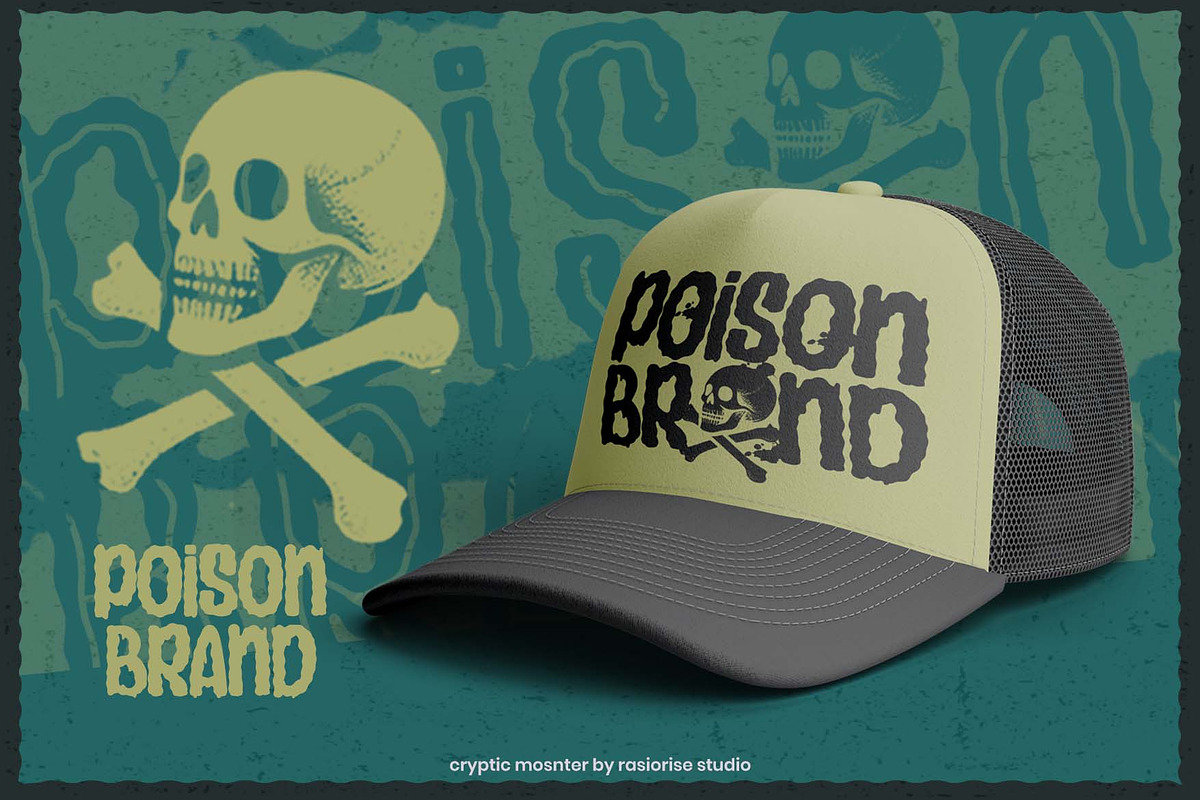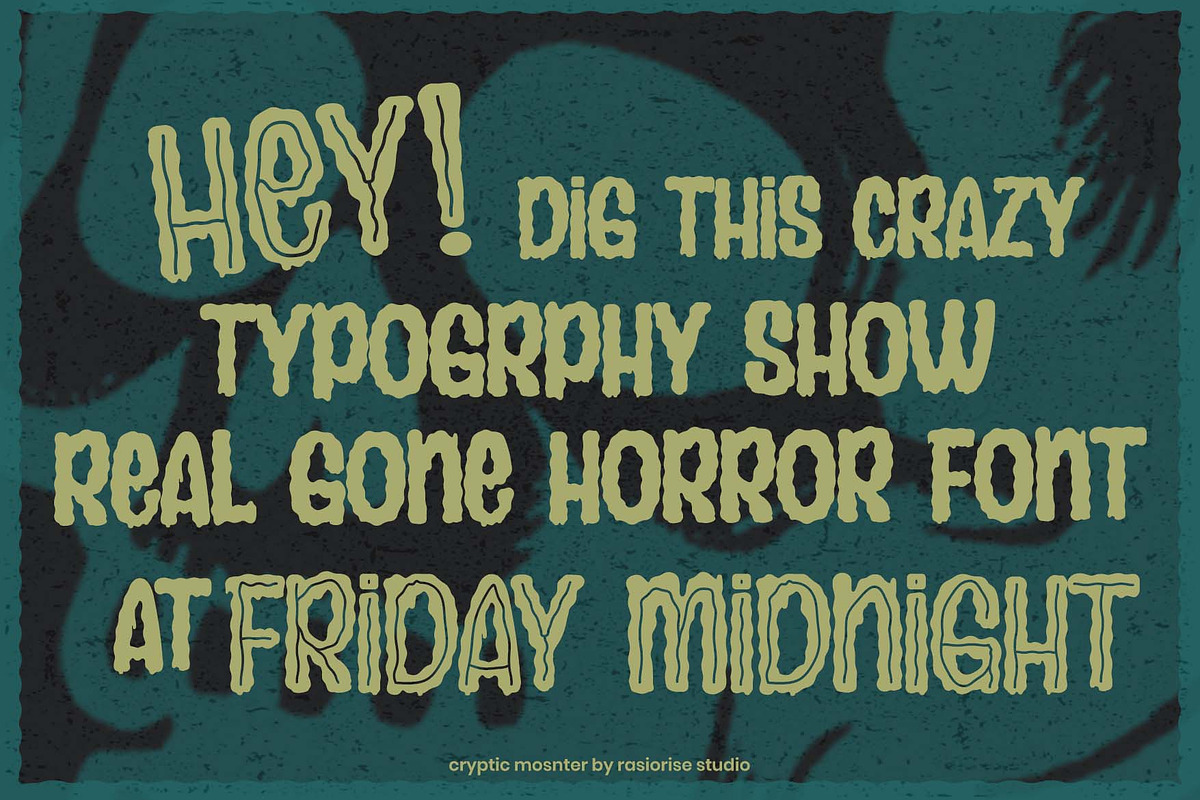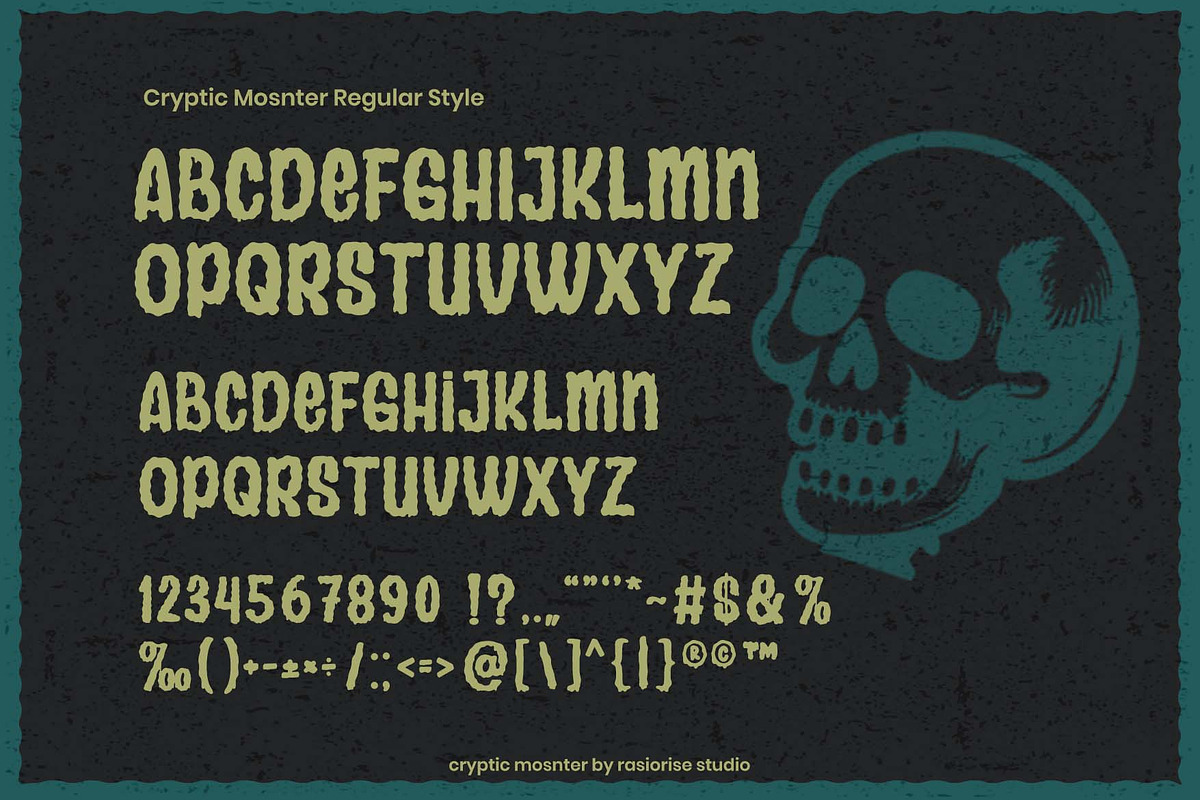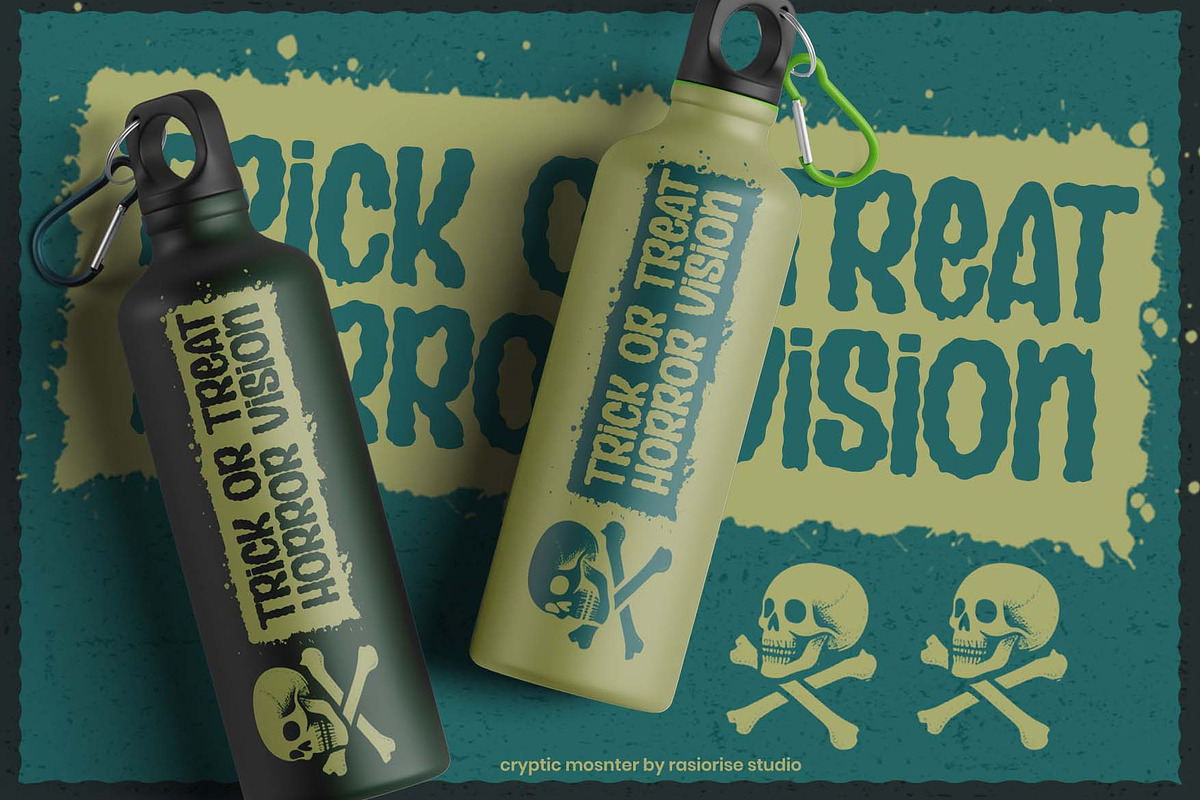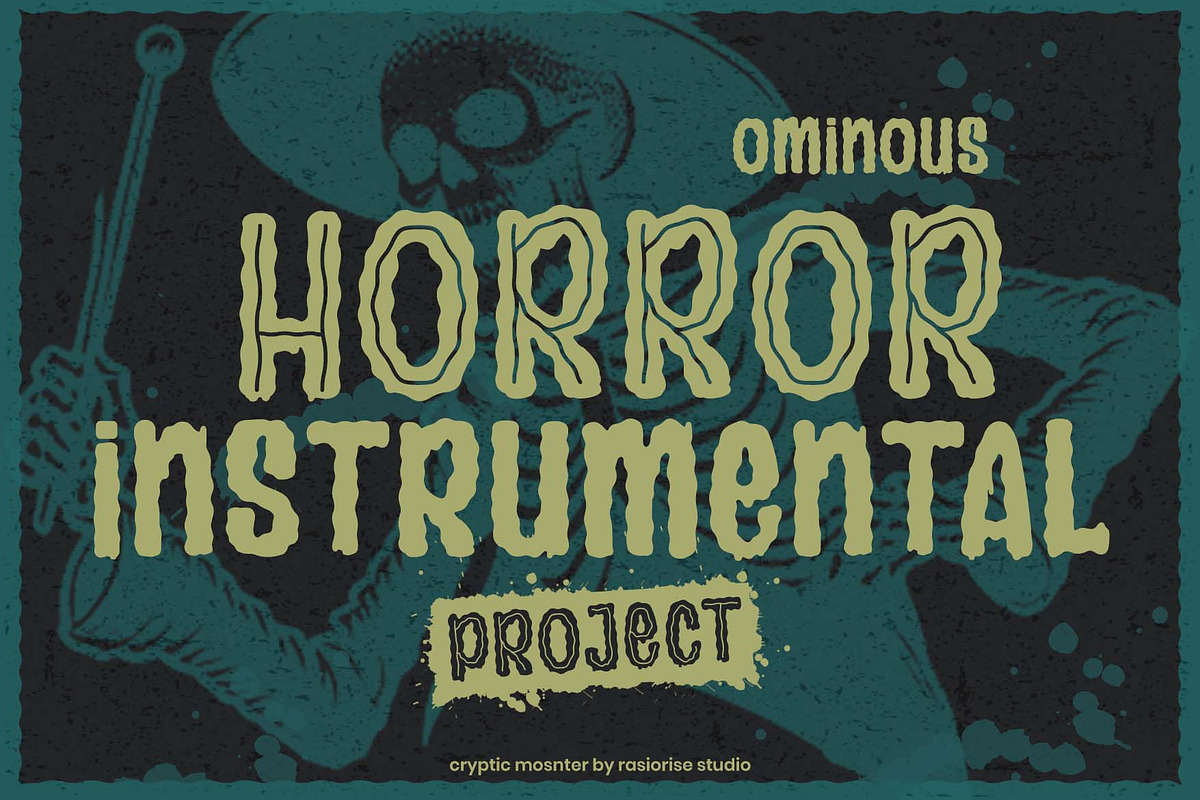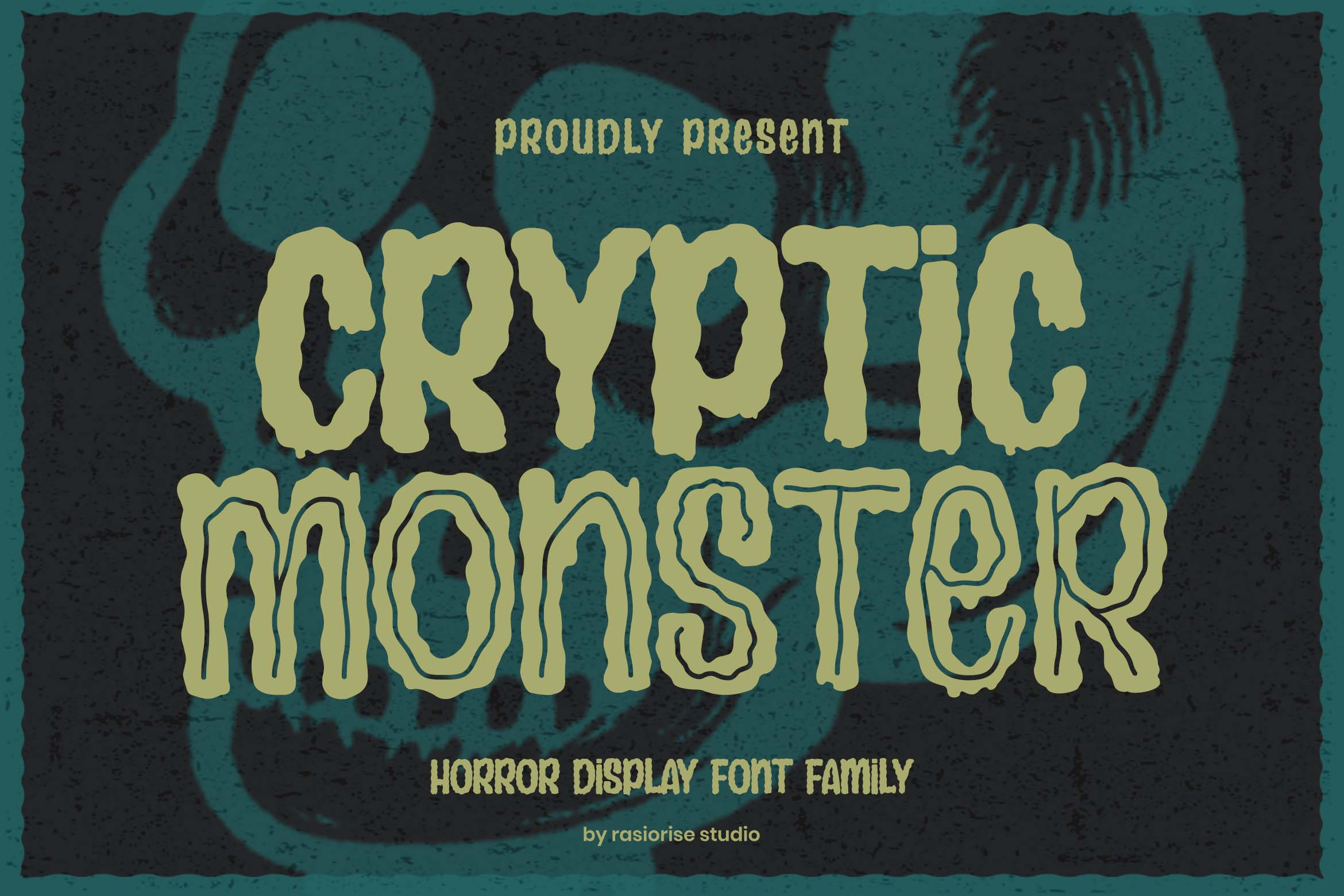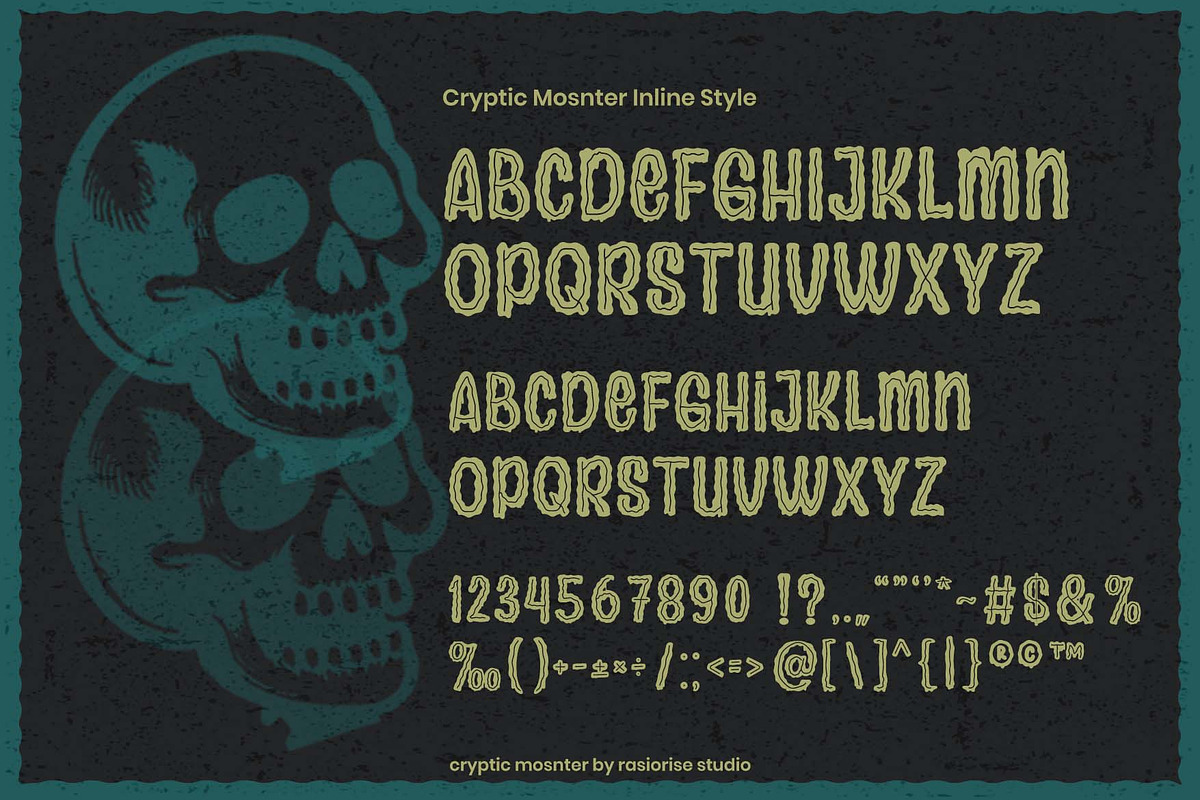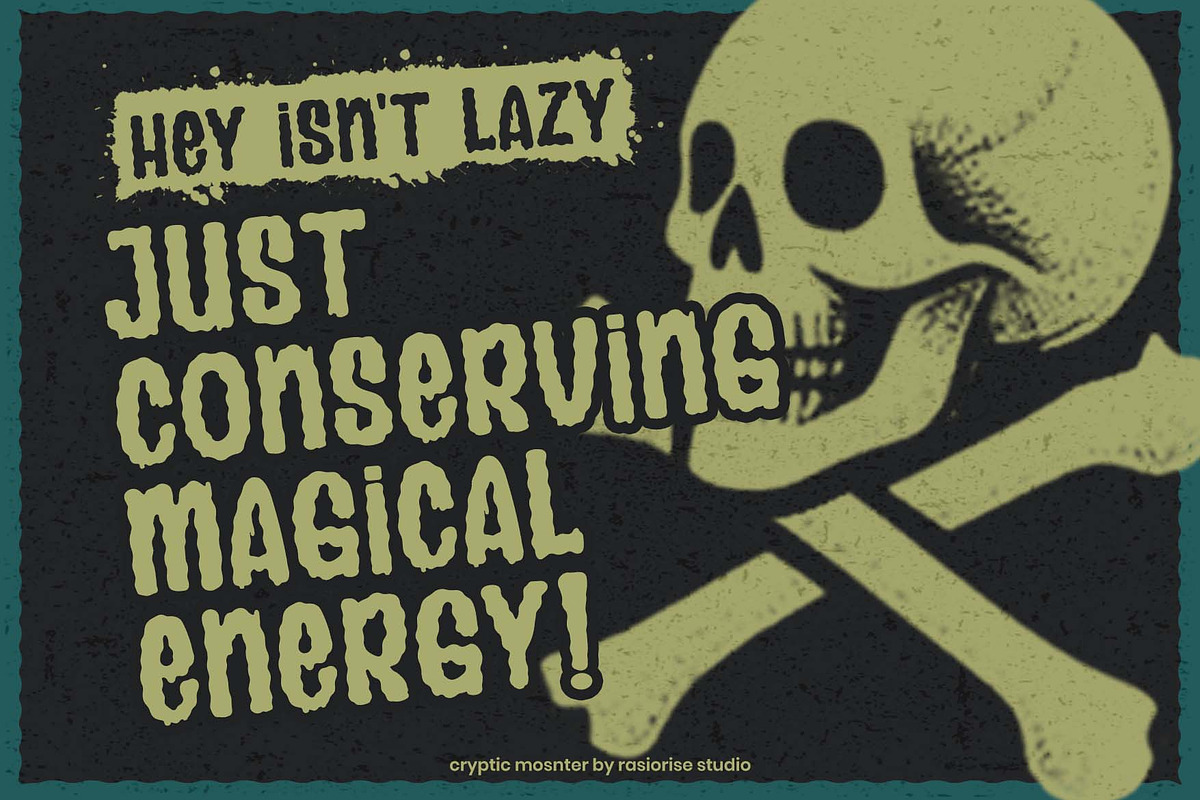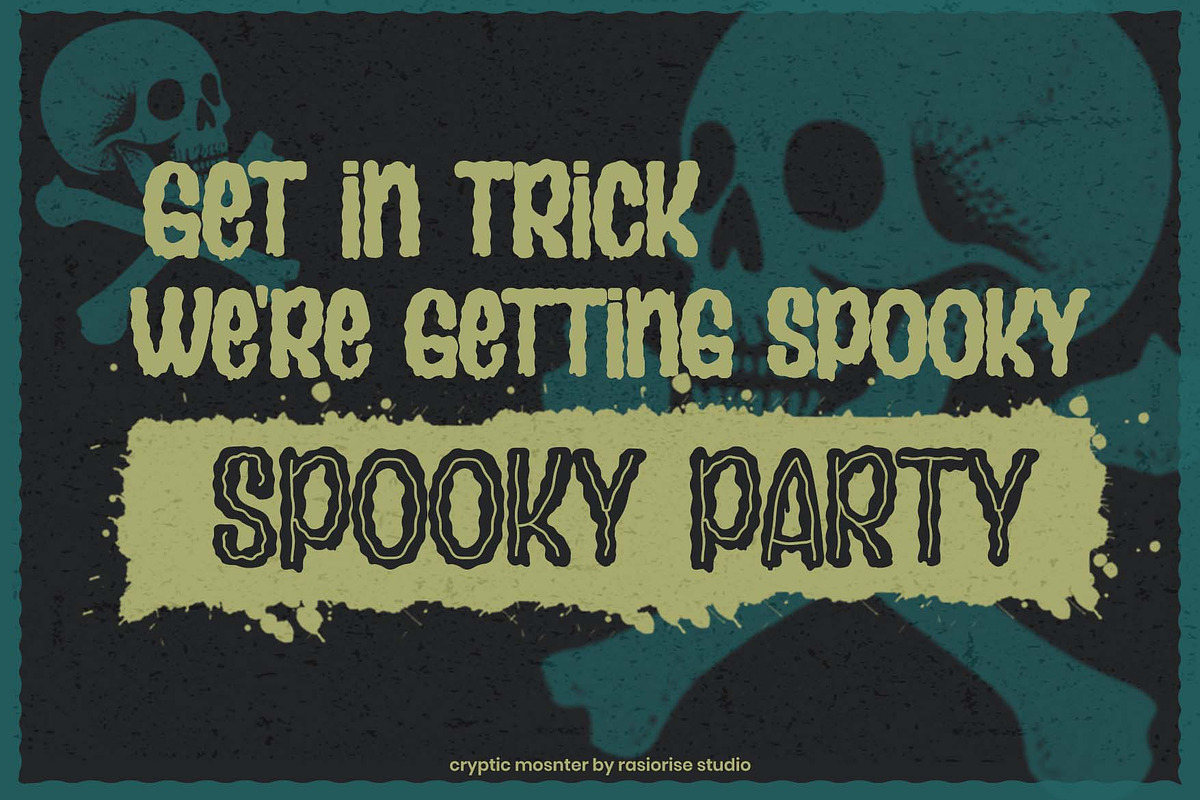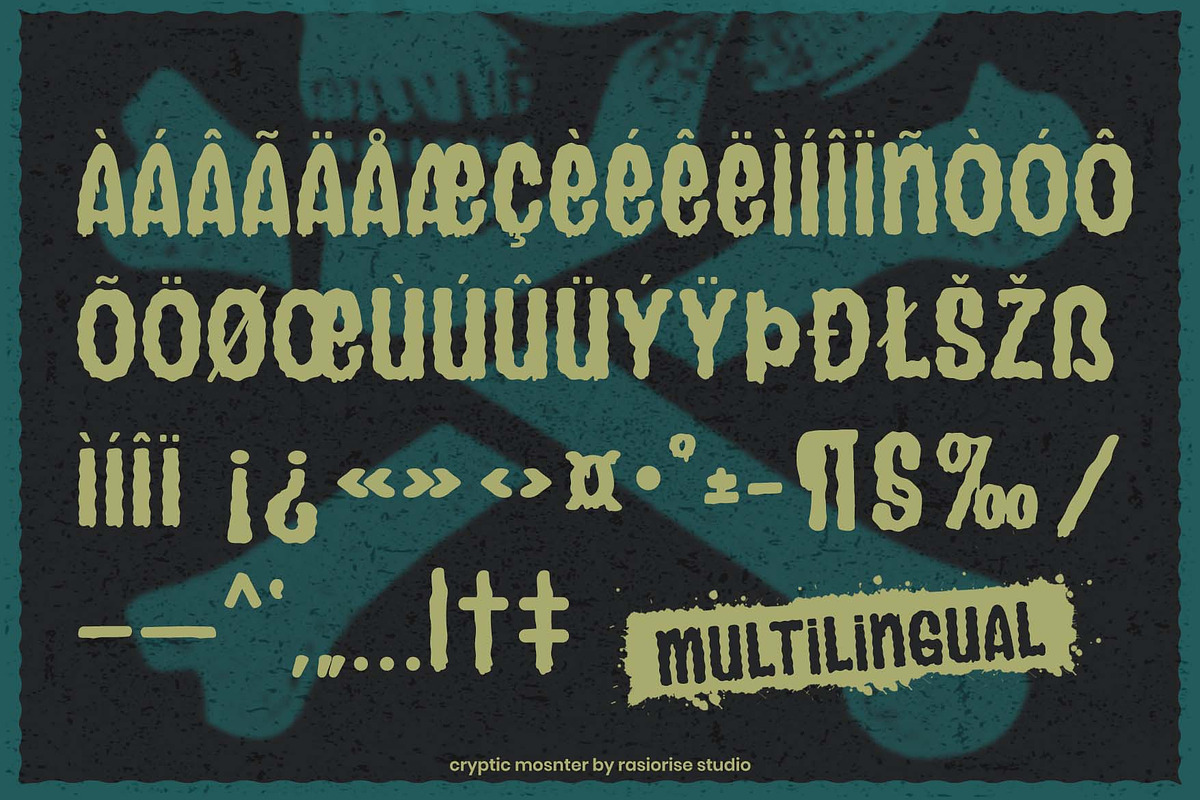
Cryptic Monster a Hallowen Font
Hi Everyone! Cryptic Monster has been released for those of you who are looking for a Horror Cartoon style font, The font is inspired by retro and classic in the headline or cover from horror comic. with a few combine to turn them into a bit of a handrawn and scribble style also 2 wariations fonr Regular and Inline fonts. Unleash your great creativity with Cryptic Monster Font, perfect for used to any projects with easy-to-read character, playful, inline and bold font for your project!.
Cryptic Monster Font very suitable for Logotype, Book Cover, Poster Invitation, Gift Card, Halloween Gretting Card, Poster, Merchandise, Packaging Label and much more.